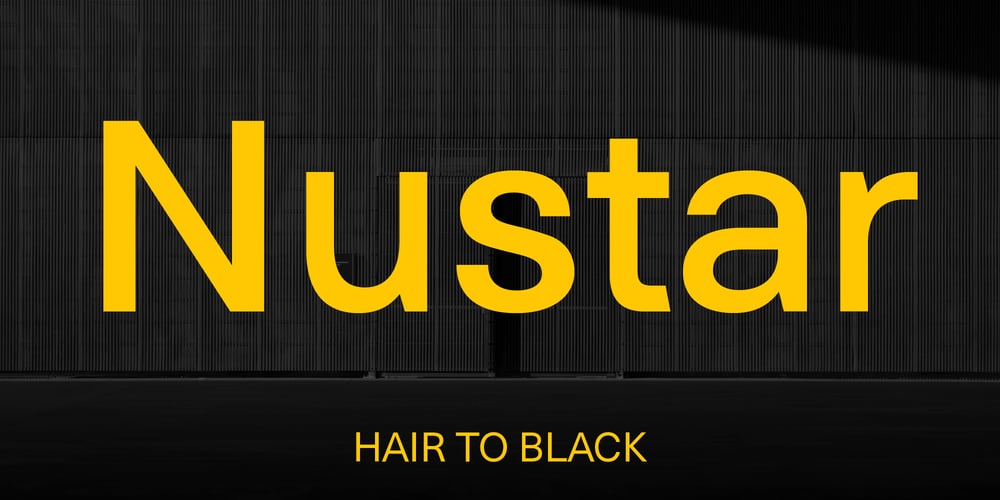
Nustar Font Family was designed by Matt Chansky and published by Matt Chansky. Nustar contains 14 styles and family package options. Nustar is a sleek, space-efficient typeface designed with a digital-first and print-forever mentality. The new sans serif font blends refined modern aesthetics and a gently higher x-height, enhancing readability. Its clean angles and space-efficient glyphs allow more content to fit within limited spaces, making it ideal for omnichannel campaign work. Nustar’s geometric precision and subtle sophistication elevate any design, giving your work that edge of contemporary differentiation to help your brand stand out. Ready to bring clarity and style to your marketing campaigns? Nustar is the upgrade your creative has been waiting for. Memorable. Ownable. Modern. Level up with Nustar.